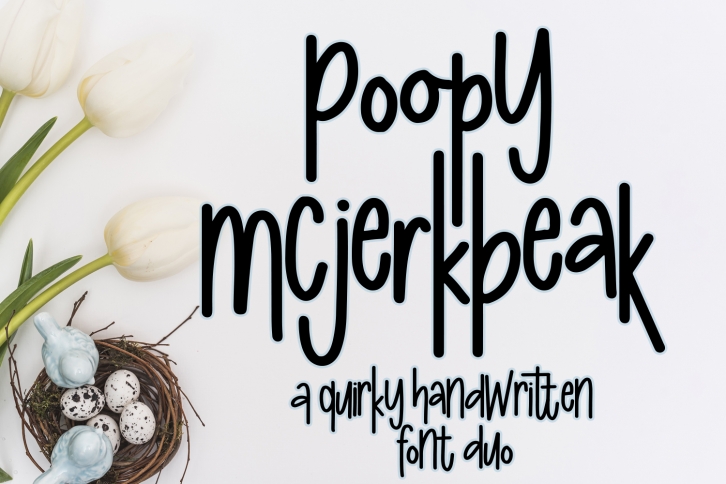
Poopy McJerkbeak Font - A quirky handwritten font duo Download
Poopy McJerkbeak is a beautiful font that was designed by FreelingDesignHouse. It's a great choice for designers and creatives who need such a font. It was released on December 7, 2019 and the file size is 12.60 MB. Poopy McJerkbeak may give a more youthful, expressive and casual look to your project. It is a very beautiful, refined, elegant, and high-quality font.